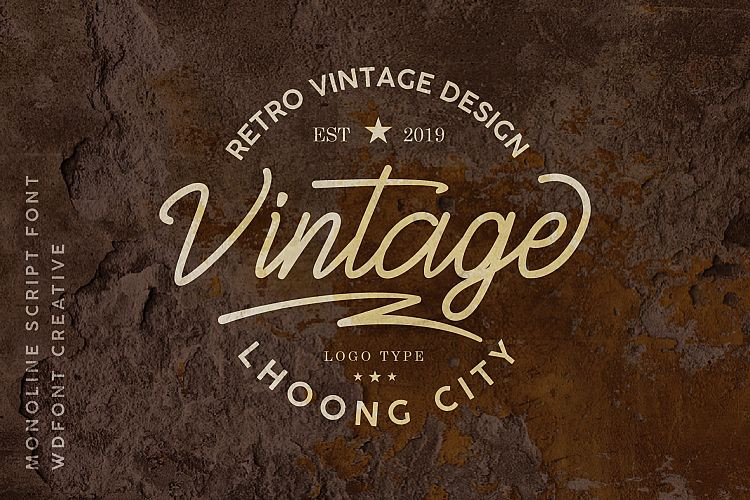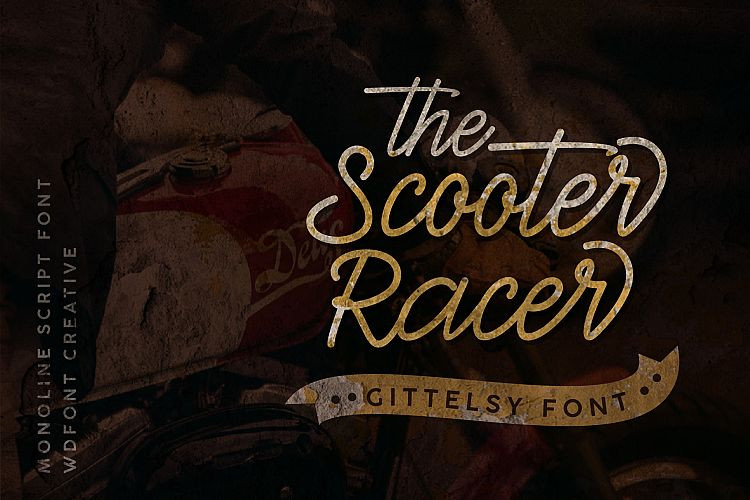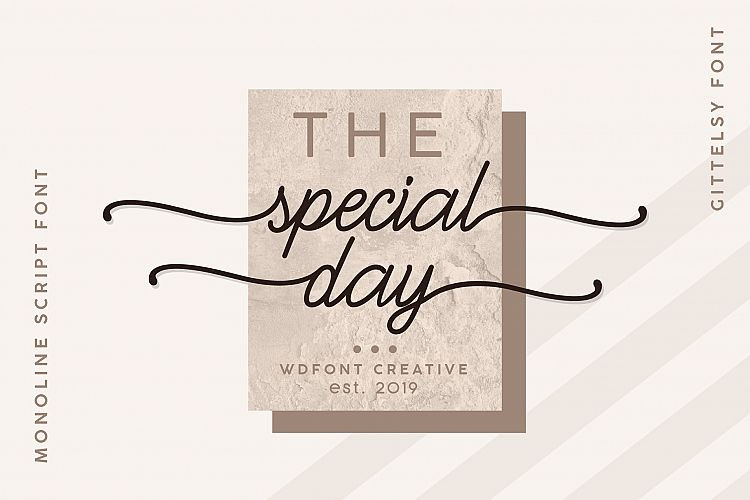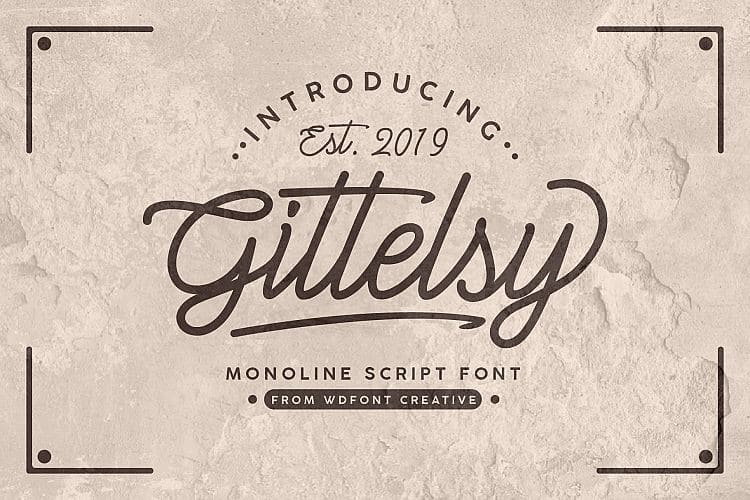
Gittelsy Monoline Script Font
Gittelsy Monoline Script Demo Font
Hello everyone! Introducing Gittelsy Font. A new fabulous & modern script with a handmade calligraphy style. It is design and shared by wdfont. Gittelsy Monoline Script Font is a font with modern monoline style and very suitable for your daily use. You can use it for branding, poster, logo, signature, t-shirt design, social media post and many more. The alternative characters were divided into several Open Type features such as Swash, Stylistic Sets, Stylistic Alternates, Contextual Alternates.